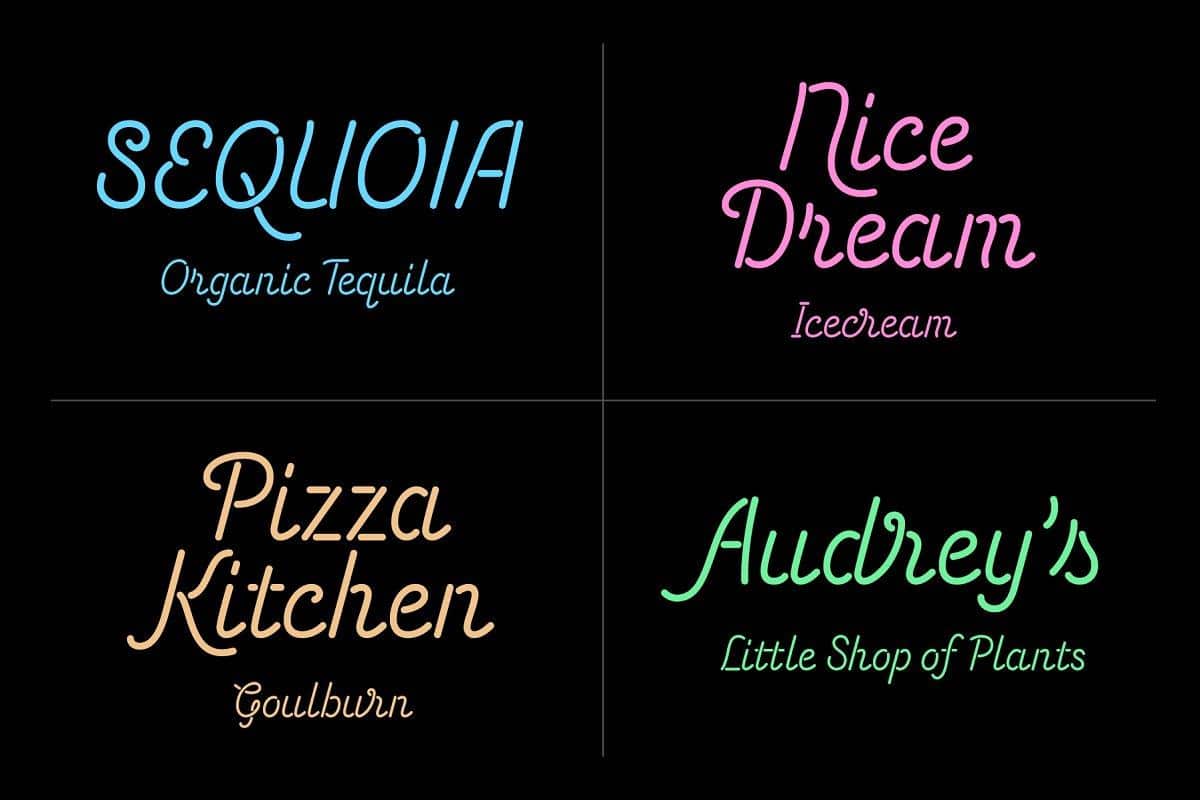
Introducing Energetic Handwritten Font. Energetic has many alternative fonts to make it easier for you to write the way you want. The alternative in it if you use it will look more elegant, Energetic also supports multi languages.
Due to its elegant personality, Energetic is a very versatile font, spanning a wide variety of projects, from bold magazine imagery, to wedding invitations, to branding, poster design, logo types and more.
- Designer: Studio Dot by dot